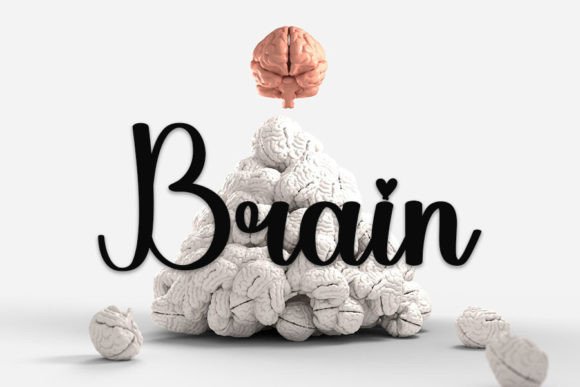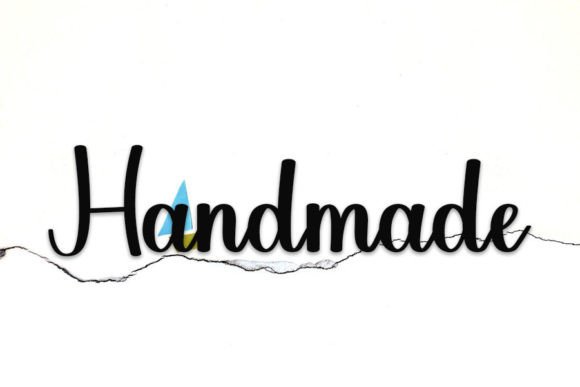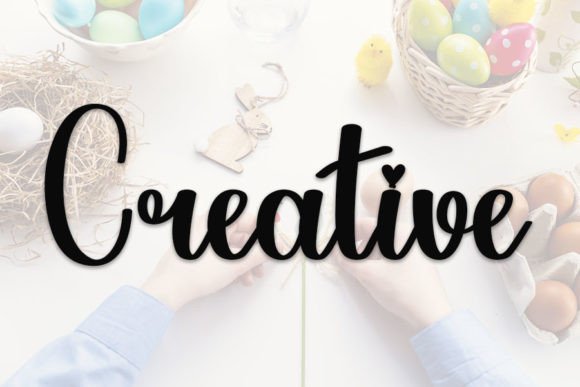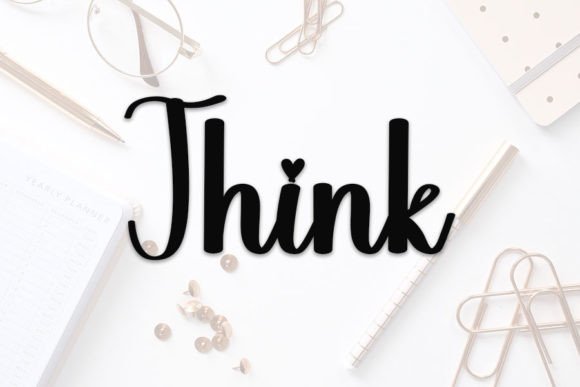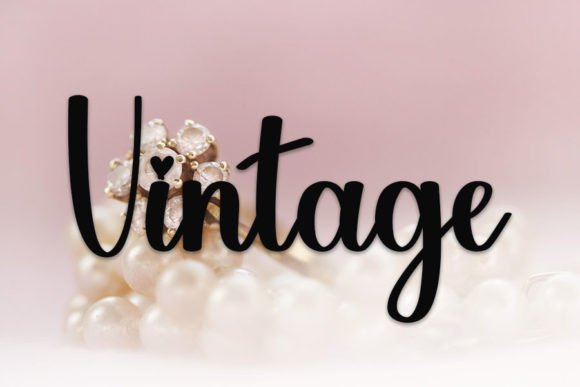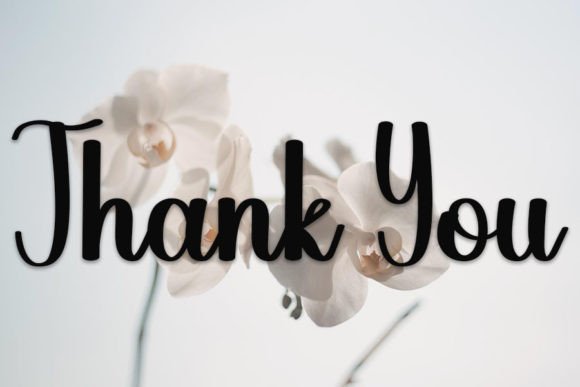
The Perfect Touch for Your Next Design Project
Have you ever found yourself stuck in a creative rut, struggling to bring your vision to life? We’ve all been there – the blank page staring back at us, taunting us with its emptiness. But then, something magical happens. You stumble upon a font that speaks to you, one that captures the essence of your artistic vision and brings it to life.
Meet the Brilliant Font, a beautiful and elegant handwritten font that adds a touch of sophistication to any project. Whether you’re designing a wedding invitation, a branding package, or a social media post, this font is sure to elevate your work to the next level. Its timeless style and distinct character make it a valuable asset for any designer looking to add a personal touch to their designs.
Key Features of Brilliant Font
- Font Family: Brilliant Font offers a range of font families, including sans-serif, serif, and script styles.
- Font Sizes: Available in a wide range of font sizes, from 8pt to 72pt, making it suitable for various design applications, including body text, headings, and titles.
- Unique Characteristic: Brilliant Font features a unique ‘smart ligature’ system, which automatically adjusts ligatures based on the surrounding text, resulting in a more natural and readable appearance.
Brilliant Font Review
As a designer, I was excited to try out the Brilliant Font, but my experience was a mixed bag. Let’s dive into what works well and what doesn’t.
- The font is extremely versatile and can be used in a wide range of projects, from logos to body text.
- It has a unique and eye-catching aesthetic that can add a touch of sophistication to any design.
- The font is highly customizable, allowing designers to tweak the spacing, size, and style to suit their needs.
- The font can be quite overwhelming when used in large quantities, making it difficult to read in some cases.
- The font’s unique style can be polarizing, with some designers loving it and others finding it too flashy.
In conclusion, the Brilliant Font is a solid choice for designers who want to add a touch of elegance and sophistication to their projects. However, it may not be the best fit for designers who prefer a more straightforward or traditional font. Overall, I’d give it 3.5 out of 5 stars.
Tips for Getting the Most Out of Brilliant Font
Use the Brilliant Font in combination with bold and italic styles to create emphasis and contrast. Experiment with different font sizes and colors to create visual hierarchy and interest. Use the font in headings and titles to create a clear and consistent visual identity.
The Brilliant Font is ideal for use in creative projects, such as posters, brochures, and social media graphics. It’s also suitable for use in presentations, reports, and documents where a clear and readable font is needed. Use the Brilliant Font to add a touch of elegance and sophistication to your designs.